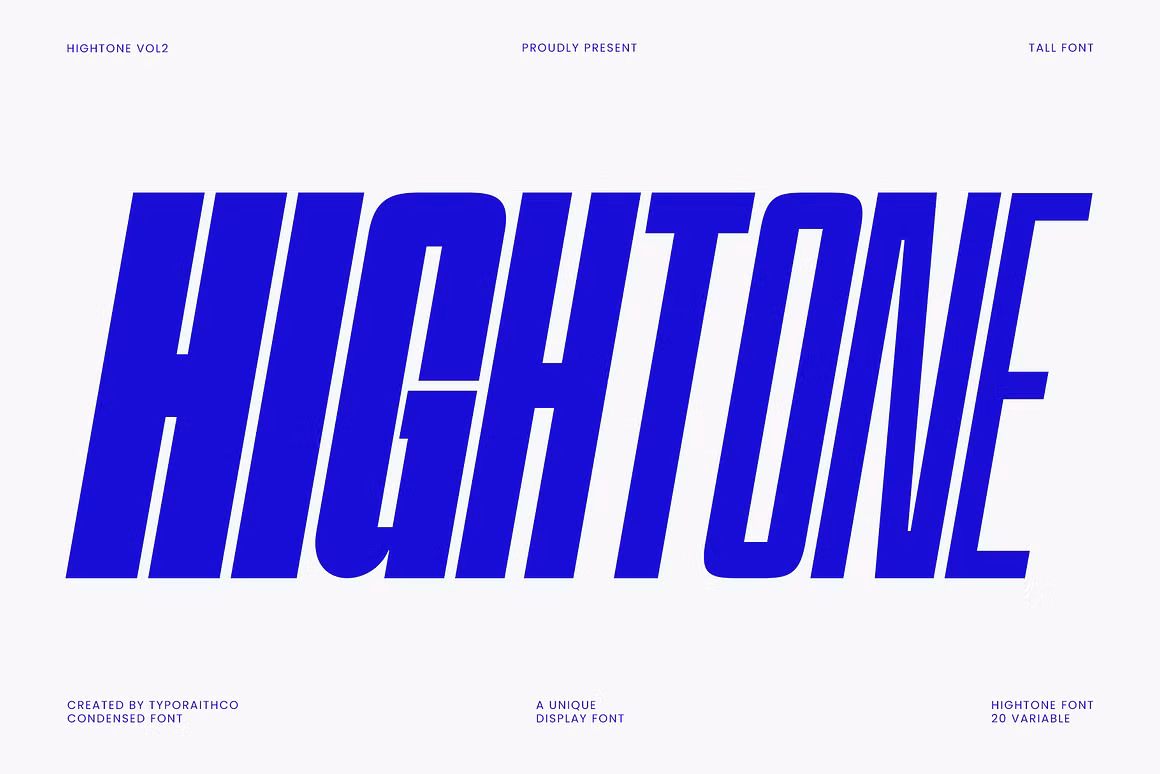
Hightone is a striking, condensed sans serif by Typoraith Co., designed to deliver bold visual impact with minimal space usage. This modern display font family comes in 20 variable styles ranging from Thin to Black, offering you the flexibility to fine-tune weight and presence for precise typographic control.
Hightone – Perfect For
– Poster and headline design
– Editorial and magazine layouts
– Logos and strong branding visuals
– Web headlines and UI titles
– Fashion, music, and lifestyle graphics
Hightone – Font Features
– Efficient variable font covering Thin → Black –
– Clean, tall design with tight spacing –
– Multilingual Latin support –
– Ideal for editorial and high-impact environments –
Font Designer Name: Typoraith Co.